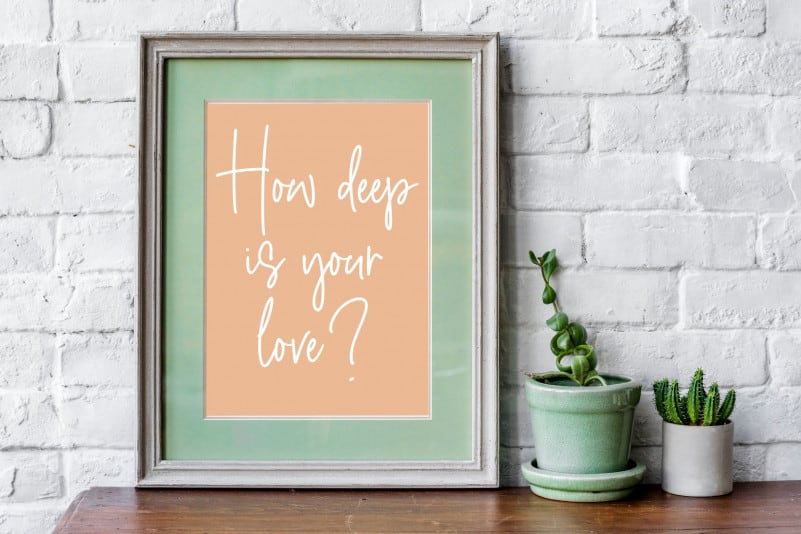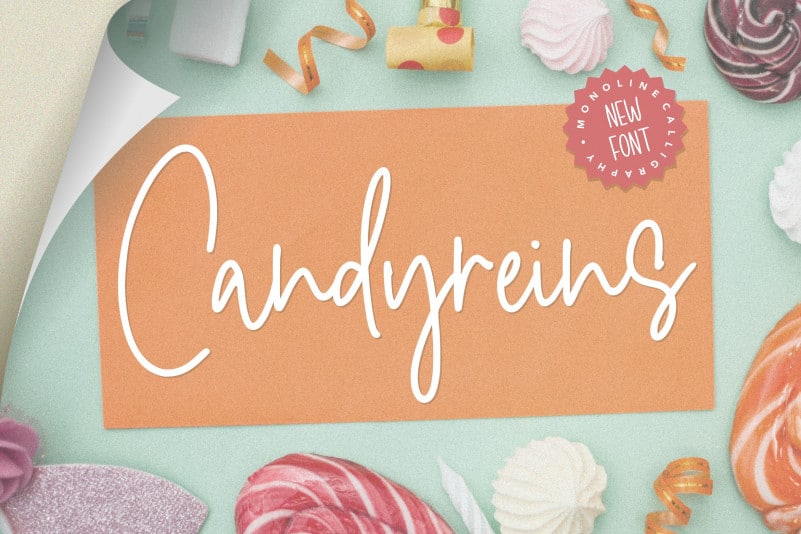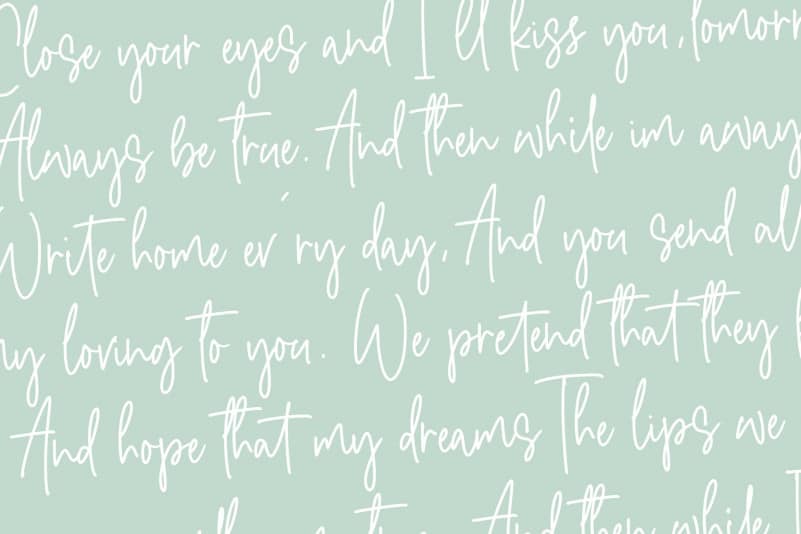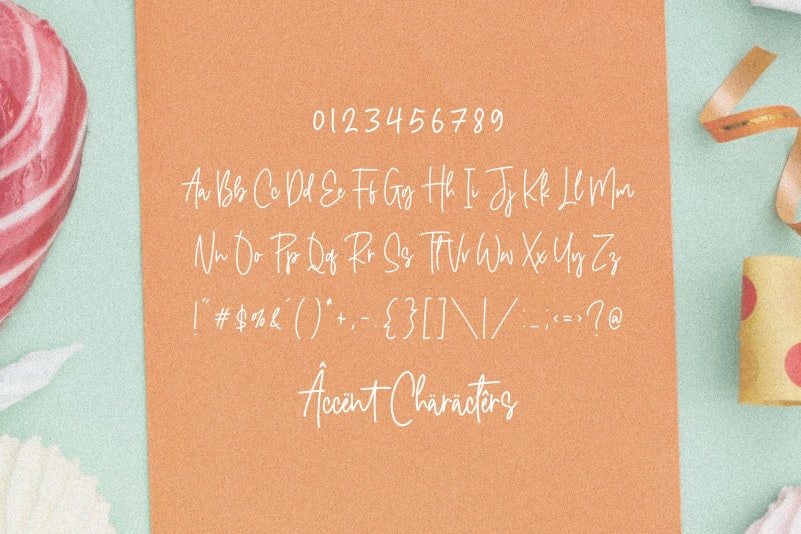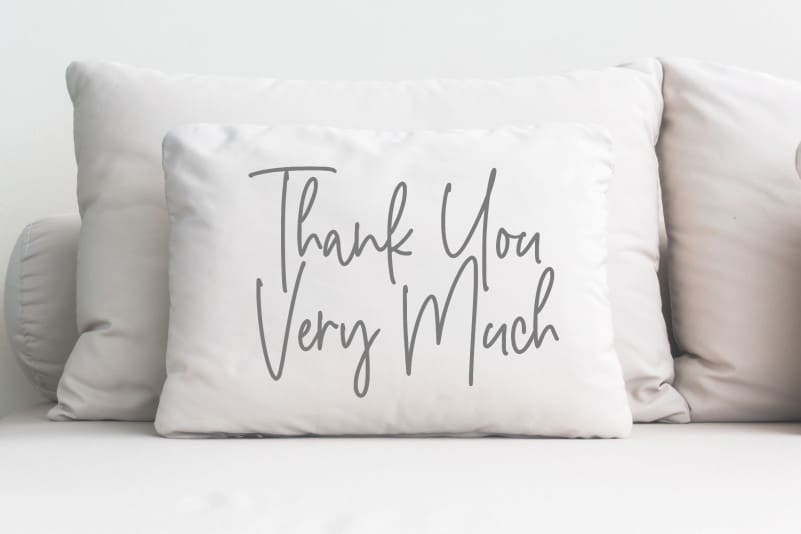
Candyreins Monoline Calligraphy Font
Proudly Present, Candyreins Monoline Calligraphy Font.
Candyreins is a Monoline Calligraphy Font.
It is perfect for product packaging, branding project, megazine, social media, wedding, or just used to express words above the background.